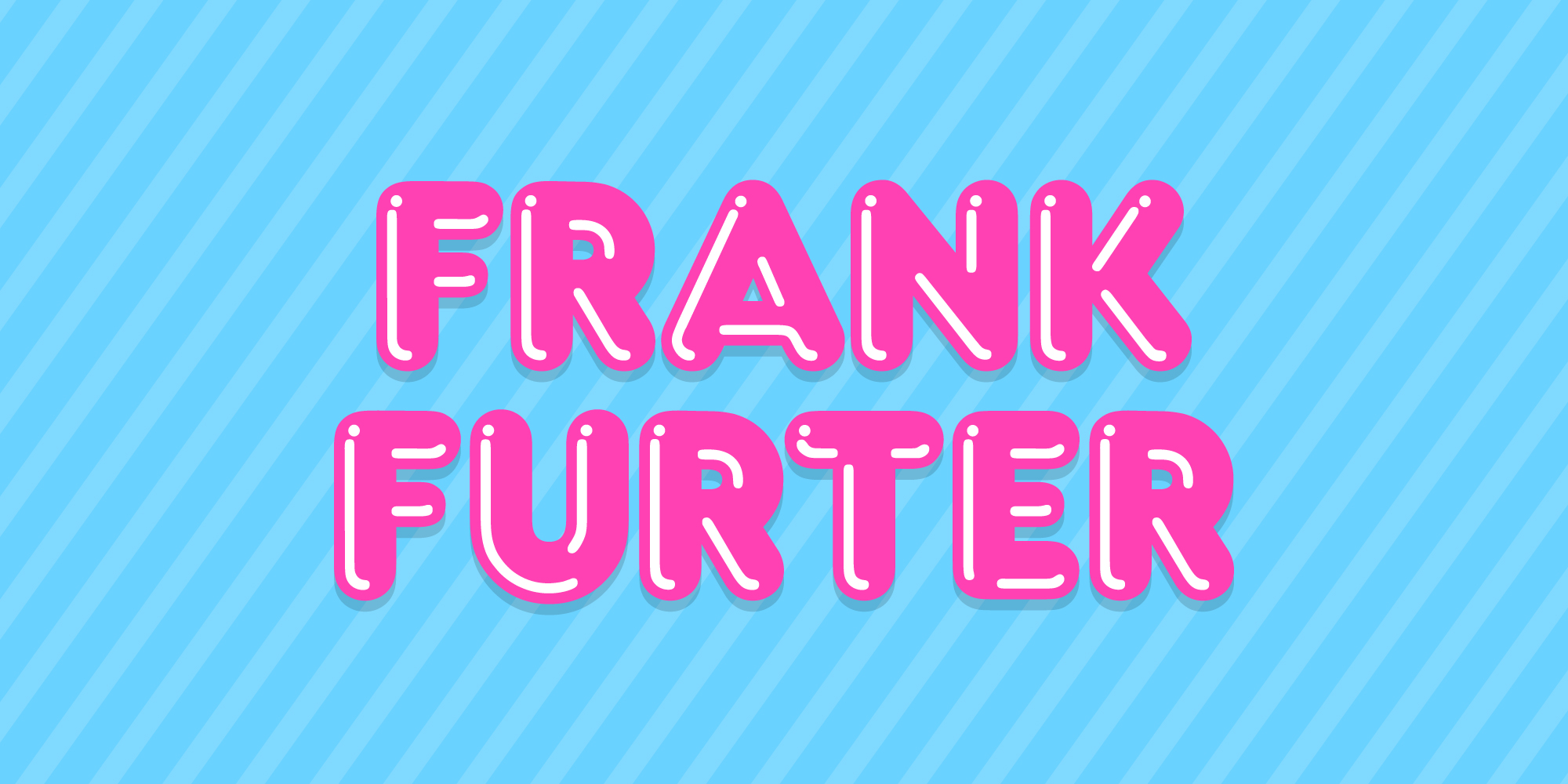
Frankfurter Font Free Download is a bold, playful display typeface that captures the fun and nostalgia of 1970s design. With its chunky, rounded letterforms and retro vibe, Frankfurter is perfect for logos, posters, packaging, and any project that calls for a touch of vintage charm.
This font’s distinctive style makes it stand out in headlines and branding, giving your work a unique personality and a memorable impact. Its friendly curves and heavy weight bring warmth and boldness simultaneously, making it a go-to choice for creative projects needing a retro flair.